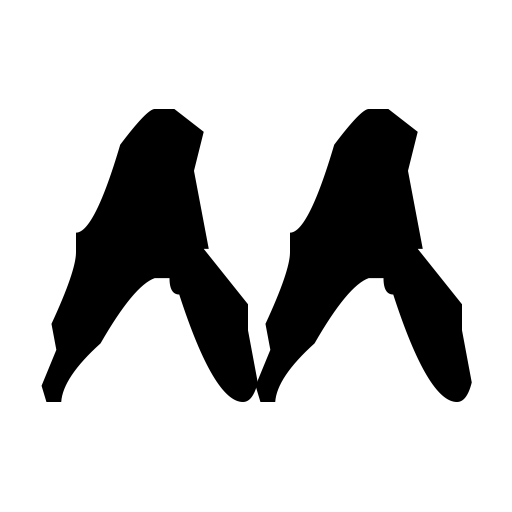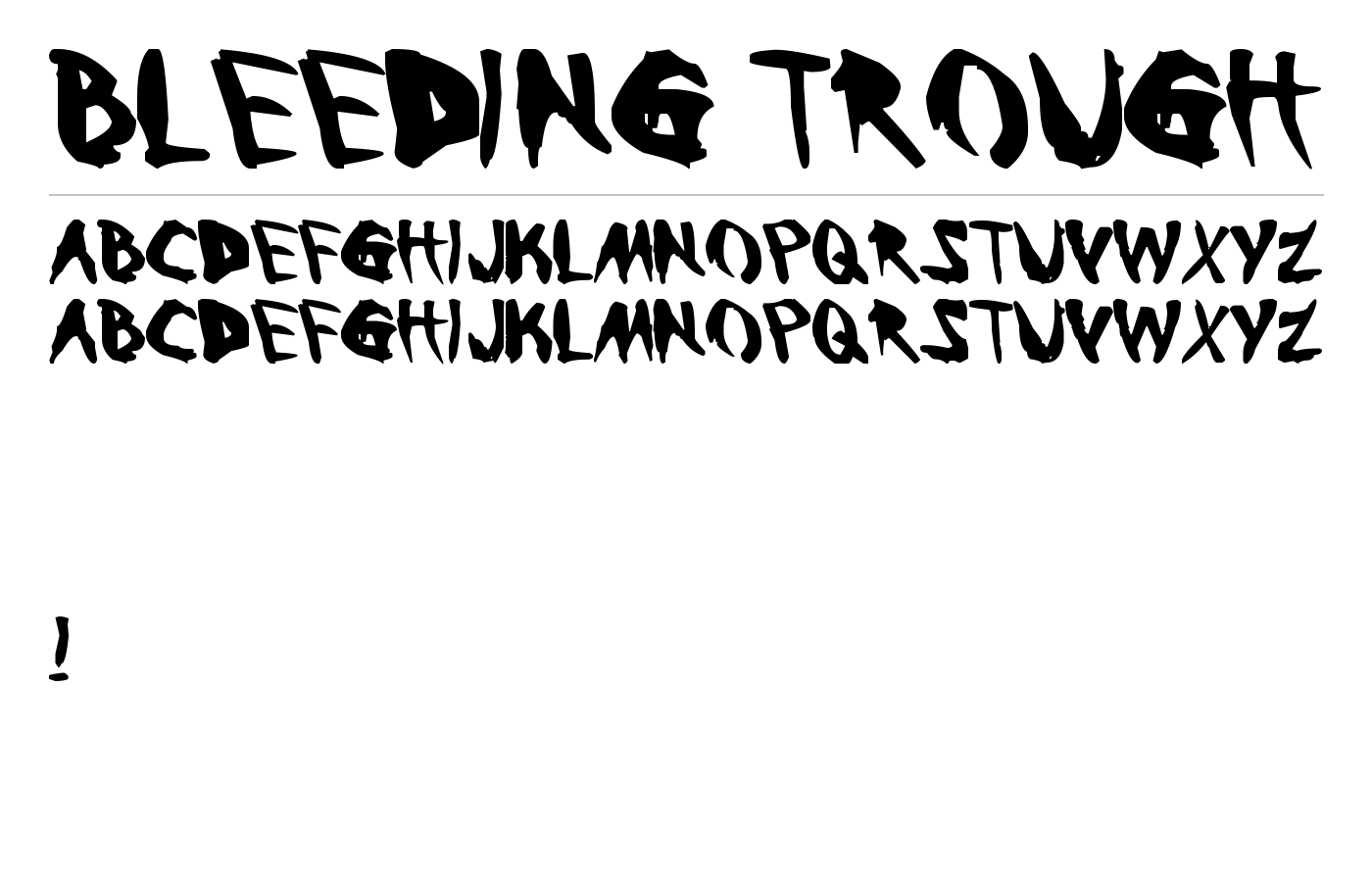
Bleeding Trough is a bold, expressive display font with a hand-painted, dripping effect that gives it a raw, edgy personality. Its irregular shapes and heavy weight make it perfect for horror-themed designs, posters, or any creative project needing a dramatic, rebellious vibe. This font works best in headlines and branding where a strong, eye-catching presence is needed.
Bleeding Trough Font
About Bleeding Trough Font